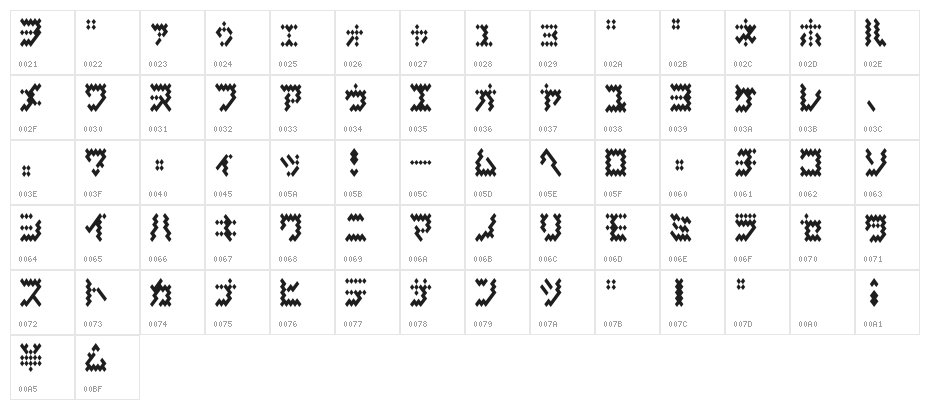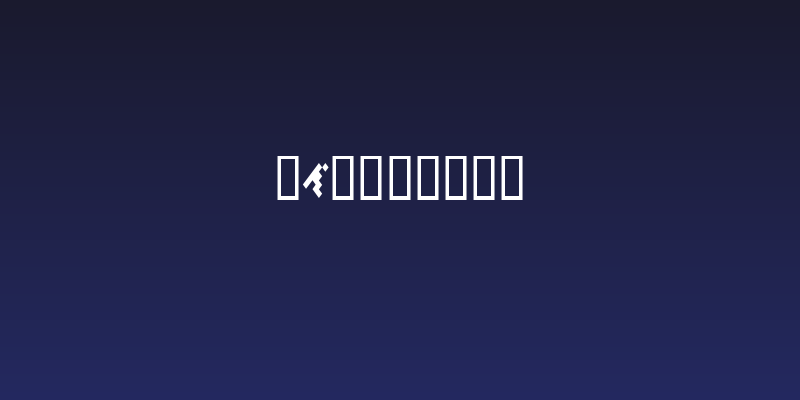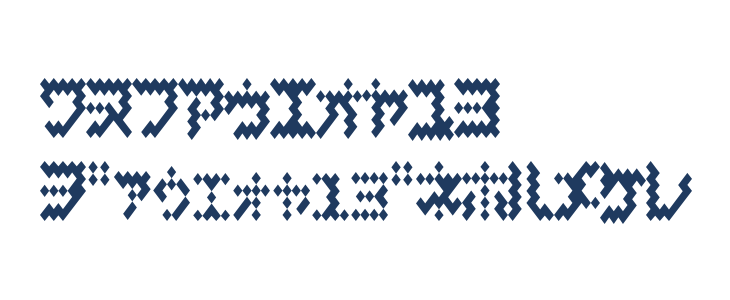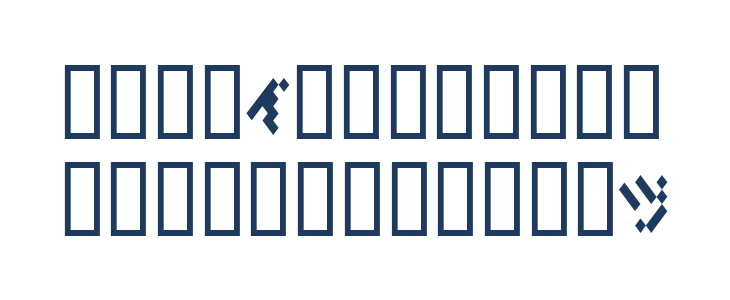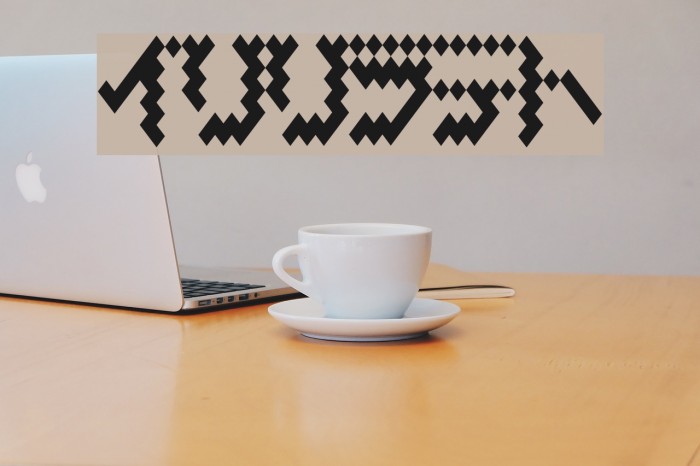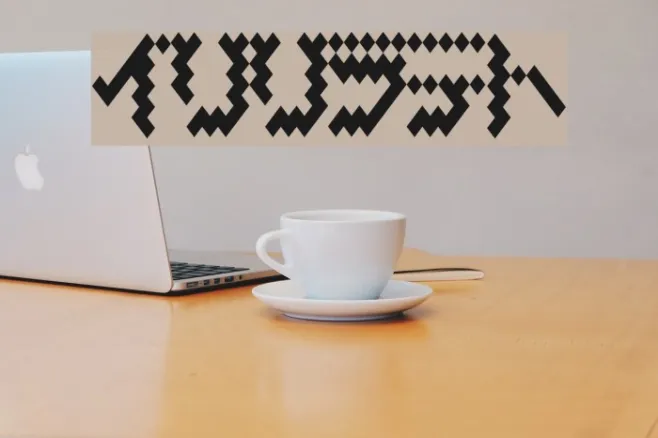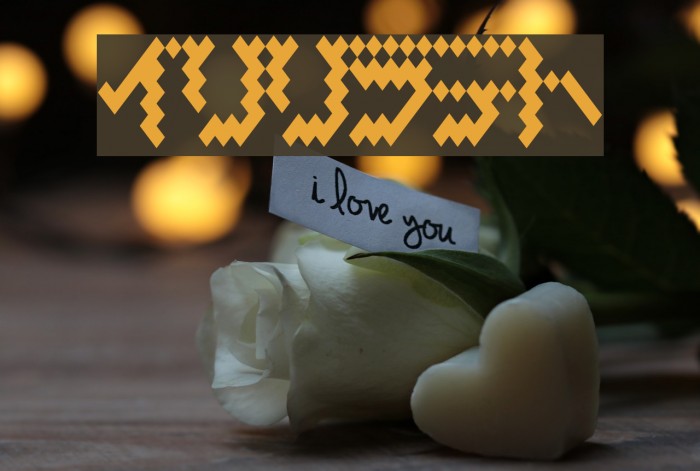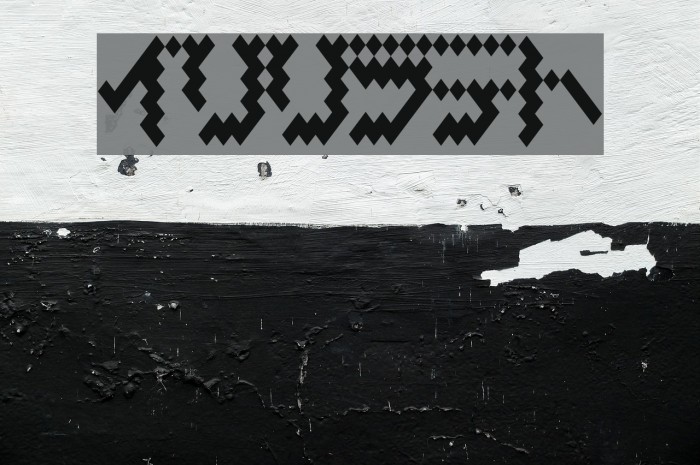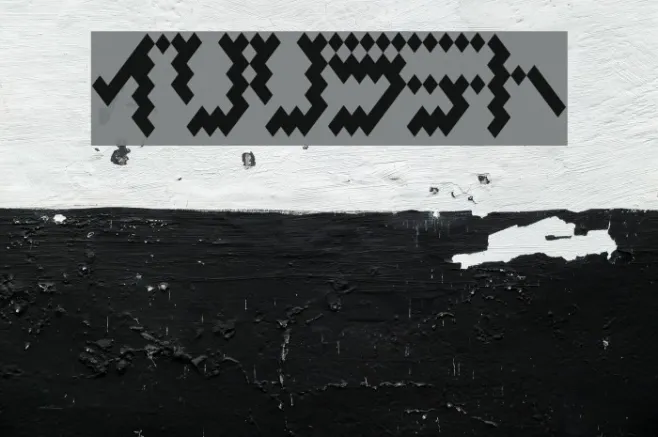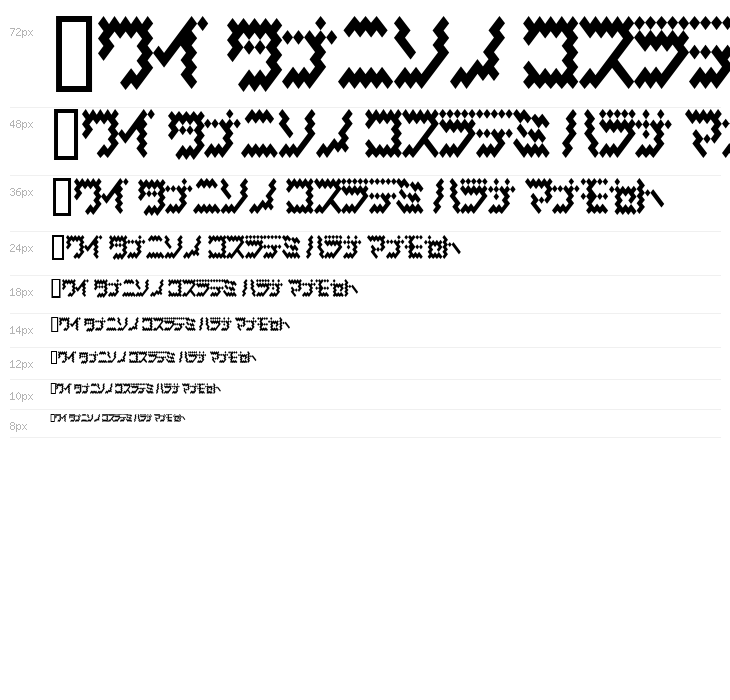
BellowsKT Font
BellowsKT Description
This font features a highly decorative and geometric style, characterized by its zigzag patterns and sharp angles. Each character is constructed with a series of interconnected triangular shapes, creating a bold and striking visual effect. The font's unique design gives it a pixelated, almost digital appearance, reminiscent of early video game graphics or mosaic art. Its distinctiveness makes it stand out, yet it maintains a consistent pattern throughout the alphabet and numerals, ensuring readability despite its unconventional form.
| Use Case | Logos, Posters, Headlines |
| Proposed Projects | Ideal for retro-themed designs, video game graphics, posters, and any project requiring a bold, eye-catching typeface. |